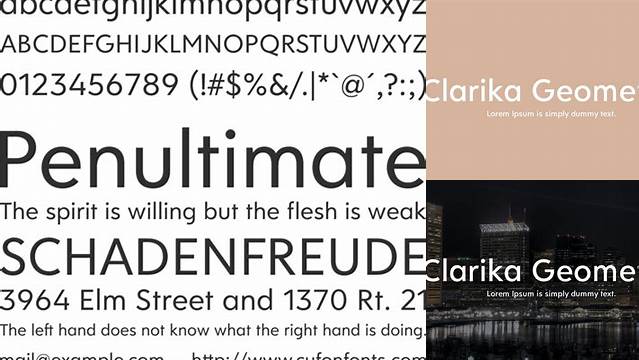
Hey there, design enthusiasts! Are you on the hunt for a fresh, modern font to spice up your projects? Look no further! Today, we're diving headfirst into the fantastic world of the Clarika Geometric Font Family, and the best part? You can snag it with a free download! This font family is a total game-changer, boasting a clean, contemporary aesthetic that's perfect for a wide range of design applications. From website headers to branding materials, Clarika's versatility makes it a must-have in your font arsenal. So, buckle up, guys, as we explore the ins and outs of this amazing font and how you can leverage it for your creative endeavors.
What Makes Clarika Font Family Special?
Okay, let's get down to the nitty-gritty. What exactly makes the Clarika Geometric Font Family so special? Well, first off, it's all about its geometric design. Think clean lines, precise shapes, and a minimalist vibe that screams modern sophistication. This font family isn't just a font; it's a statement. It's designed to grab attention without being overly flashy, making it ideal for conveying a sense of professionalism and clarity. Imagine your brand looking sleek and polished, instantly conveying a message of trust and reliability – that's the power of Clarika.
One of the key features that sets Clarika apart is its geometric construction. Each letter is carefully crafted using basic geometric shapes, resulting in a visually balanced and harmonious appearance. This meticulous design ensures that the font is not only aesthetically pleasing but also highly legible, even at smaller sizes. This is a crucial factor, especially if you're using the font for body text or on devices with smaller screens. You want your audience to be able to easily read and understand your message, and Clarika delivers on this front. The font's geometric nature also lends itself well to a variety of design styles. Whether you're aiming for a minimalist, tech-inspired, or even a slightly retro look, Clarika can adapt and shine. It's like having a chameleon in your font library – it seamlessly blends in with any design theme you throw at it.
Let's not forget the versatility of the Clarika Geometric Font Family. It typically includes a range of weights and styles, from light and airy to bold and impactful. This gives you complete control over the look and feel of your design. Need a delicate touch for a logo? Use the light weight. Want to make a headline pop? Opt for the bold. This flexibility makes Clarika suitable for various applications, including but not limited to: website design, branding, print materials, social media graphics, and even app interfaces. Its adaptability makes it a workhorse in any designer's toolkit. This is particularly beneficial when you're working on a project that requires consistency across multiple platforms or mediums. You can maintain a unified visual identity by using different weights and styles of the Clarika font, ensuring that your brand message is clear and consistent across all touchpoints. The wide range of weights also allows you to create visual hierarchy within your designs, guiding the viewer's eye to the most important elements.